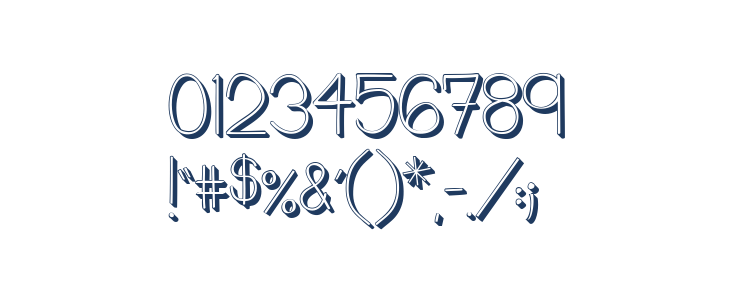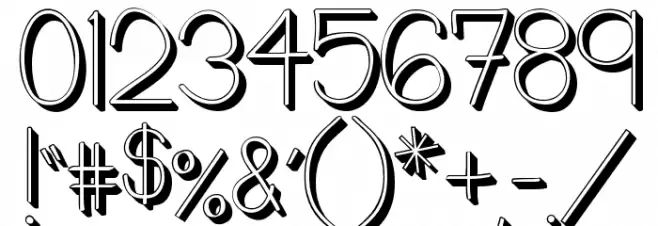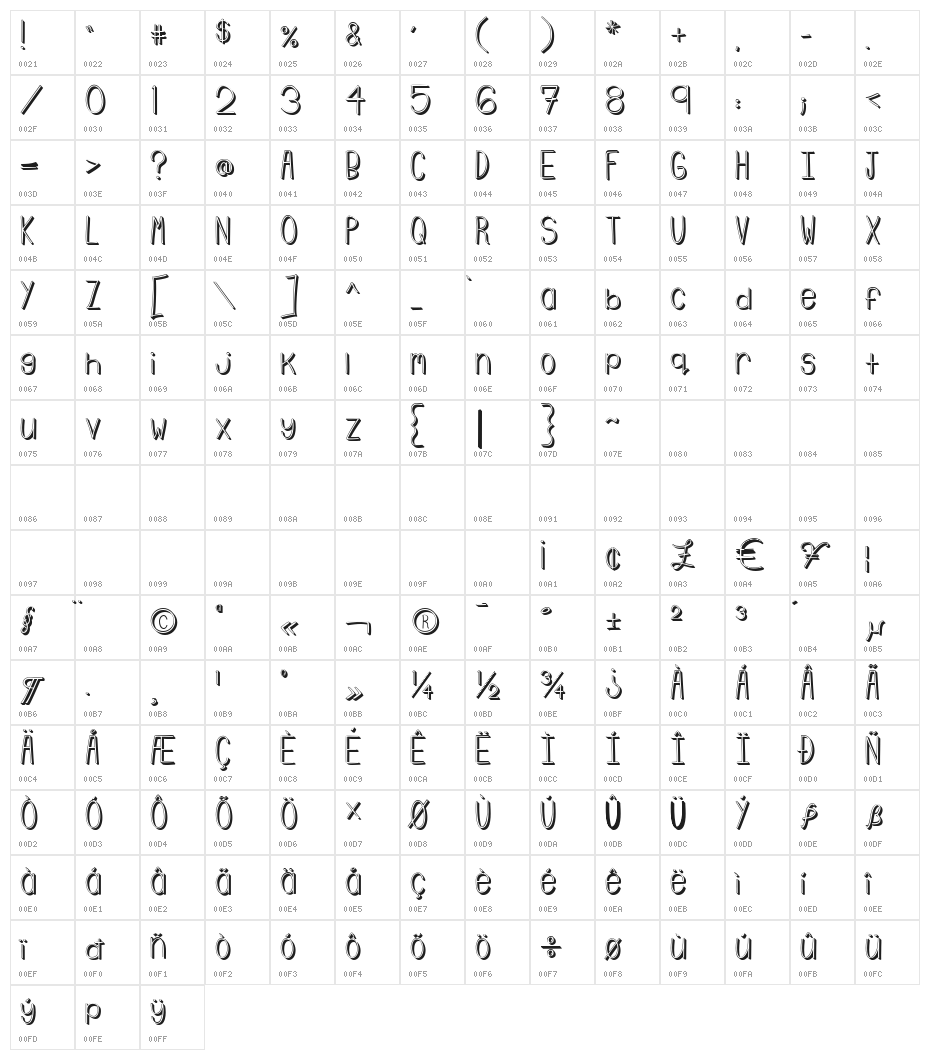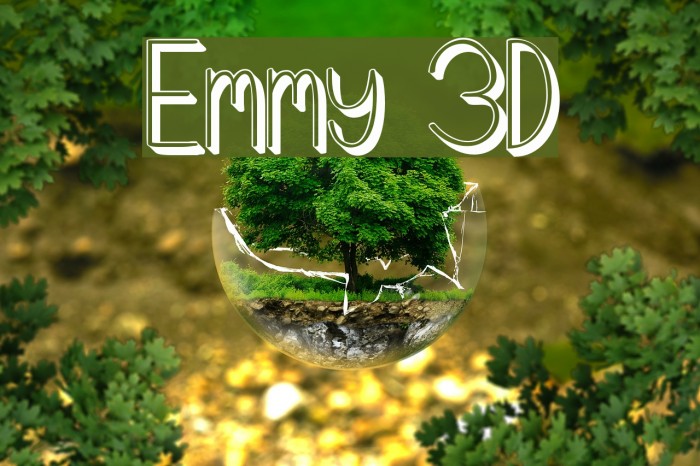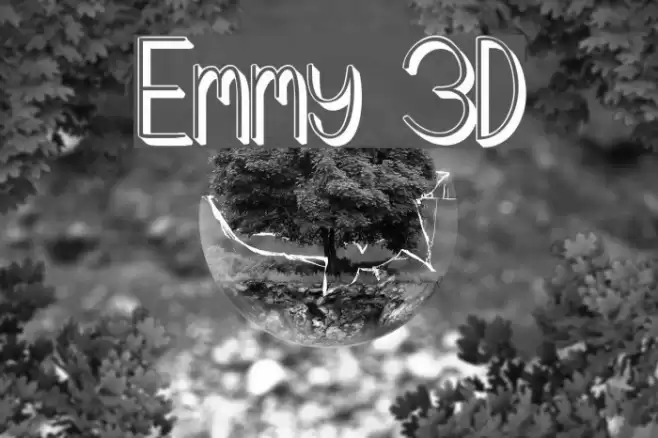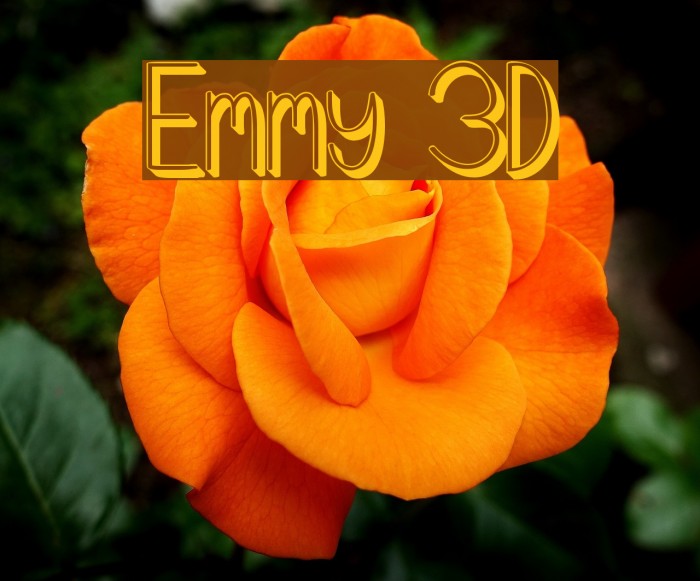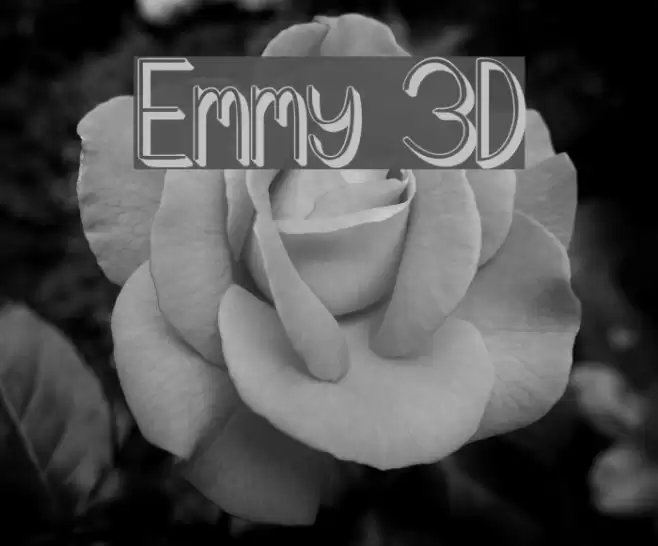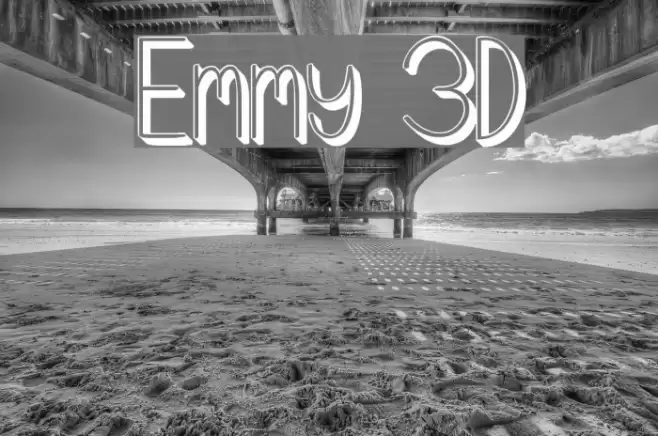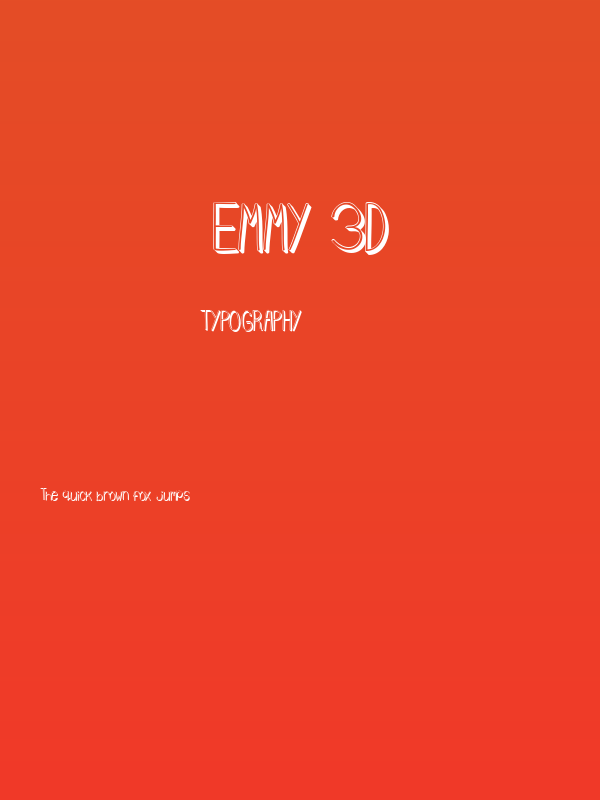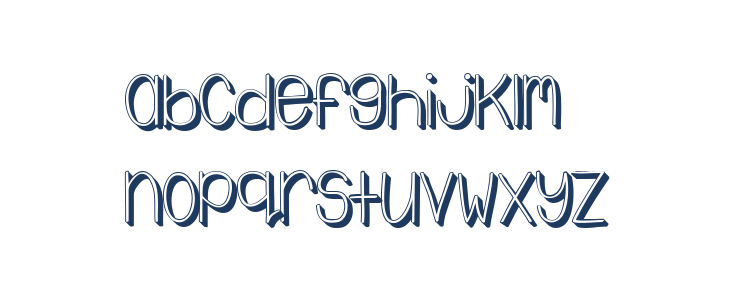
Emmy 3D Font
Emmy 3D Description
This font features a playful and dynamic 3D effect, with bold outlines and a shadow that gives depth to each character. The uppercase letters are tall and slightly narrow, while the lowercase letters maintain a consistent style with rounded edges. The numbers and special characters follow the same design, ensuring uniformity across all elements. The font's unique style makes it stand out, offering a modern twist with its three-dimensional appearance. It's ideal for projects that require a fun and engaging visual impact.
| Overall Style | Modern, Playful |
| Proposed Projects | Ideal for posters, children's book covers, playful branding, and eye-catching headlines. |